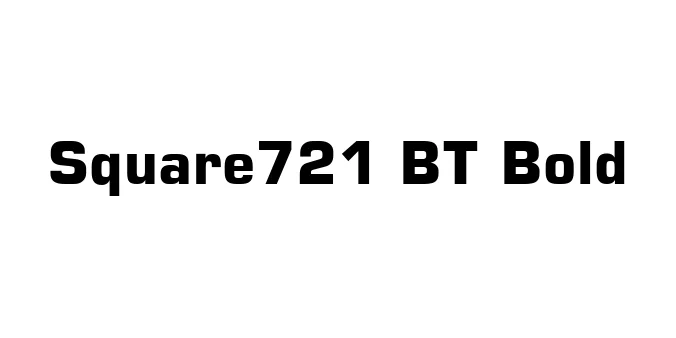
Square721 BT Bold
Designed by Aldo Novarese
| Font Name | Square721 BT |
| Designer | Aldo Novarese |
| Similar Fonts | Eurostile, Microgramma, Bank Gothic, Michroma |
Square 721 BT Bold is a classic digital typeface based on the geometric designs of Eurostile, which was originally created by the Italian master typographer Aldo Novarese in 1962. This font is characterized by its distinctively square-off curves and structural, architectural aesthetic that perfectly embodies the spirit of mid-century modernism. Its geometric precision and wide stance make it a staple for designs that require a clean, organized, and highly sophisticated appearance.
The Bold weight of the Square 721 family provides a robust and commanding presence on both digital and printed mediums. Its solid, blocky forms ensure excellent readability and a sense of industrial strength, making it a favorite for corporate branding, futuristic media projects, and technical documentation. Whether applied to high-tech user interfaces or bold editorial headlines, Square 721 BT Bold commands attention while maintaining a professional and contemporary feel.
Square721 BT Bold Best Uses
Perfect for creating strong, stable logos for technology, engineering, and manufacturing firms.
Ideal for high-impact titles in magazines, posters, and web banners.
Excellent for futuristic user interfaces and science fiction themed media.
High legibility makes it suitable for architectural wayfinding and outdoor advertising.